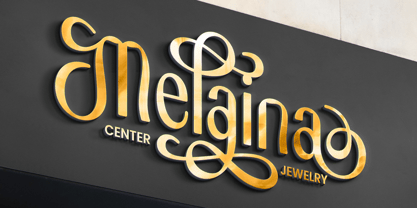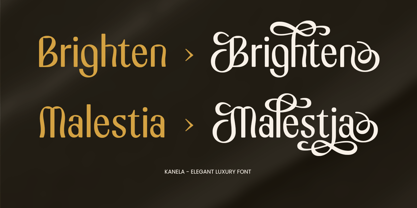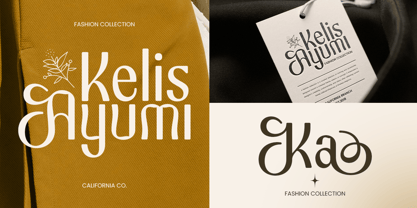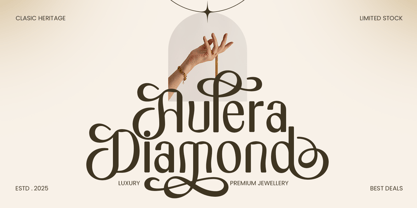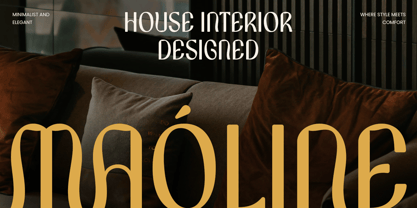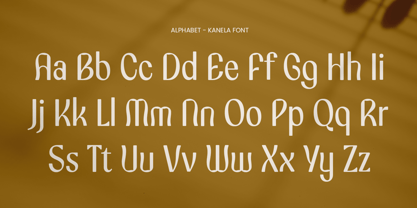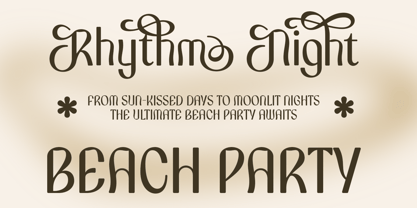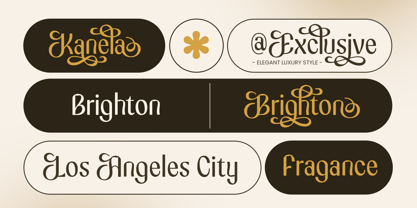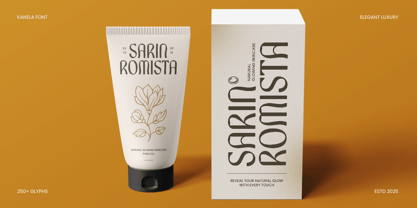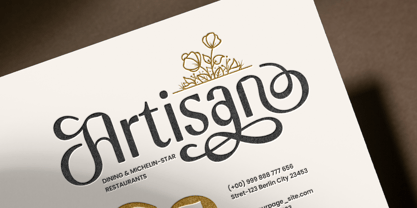
Kanela is a graceful sans serif font that blends classic elegance with a modern luxury aesthetic. With its soft curves, refined contrasts, and stylish flair, Kanela is perfect for premium branding, fashion editorials, wedding invites, upscale packaging, and elegant logo designs. Each letterform is thoughtfully shaped to exude timeless beauty and high-end appeal.
Inspired by editorial typography and luxurious lifestyle brands, Kanela brings a polished and graceful tone to both digital and print projects. Whether you're designing a boutique brand identity or a cinematic title, this font will elevate your visual storytelling.
Let Kanela become the voice of sophistication in your design arsenal—an elegant choice for projects that demand taste and class.
Kanela Elegant Luxury Font Features:
Elegant Sans Serif Style with Modern Luxury Touch
Perfect for Branding, Editorials, Invitations & Packaging
Punctuation, Numbers, and Symbols
Uppercase and Lowercase
Opentype Features